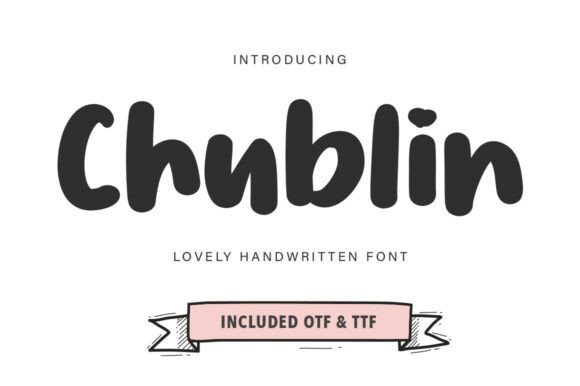
Introduction to Chubblin Font
Embrace the cozy side of design with Chublin, a thick display typeface that captures a “warm-and-welcoming” soul.
This font features bold, ultra-rounded letterforms uniquely characterized by rhythmic, hand-drawn strokes and a playful heart-shaped dot over the “i ” With its heavy structural weight and “hug-like” personality, Chublin is the premier choice for independent craft packaging, children’s apparel branding, comfort-food menu titles, and high-impact “sweet-and-sturdy” social media headers.